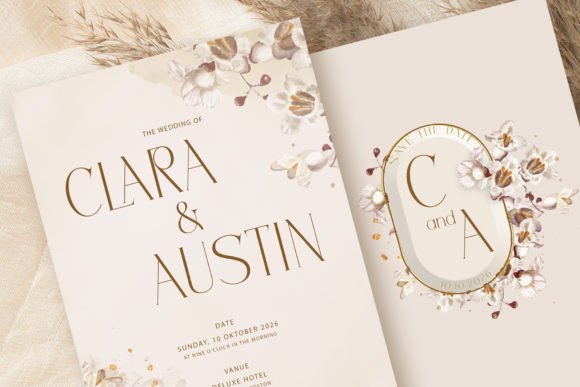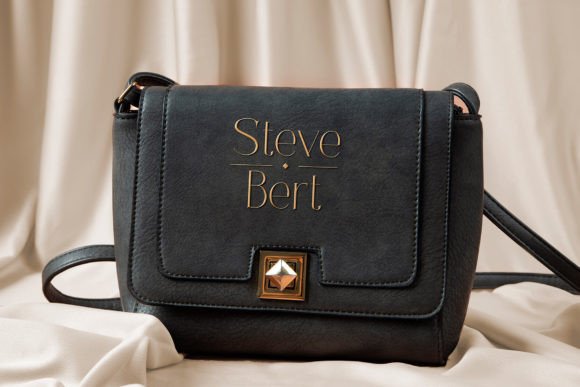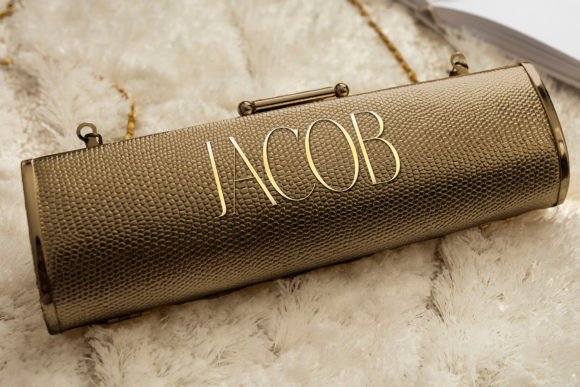
Introduction to Rolexa Font
Have you ever found yourself in the midst of a creative project, frantically searching for the perfect font to bring your vision to life? You know, that moment when everything else fades into the background, and all that matters is finding the right typography to make your design pop. For many designers, this is a familiar feeling, and it’s exactly what inspired us to dive into the world of fonts.
Among the countless options available, one font stands out for its elegance and versatility: the Rolexa Font. With its bold and sophisticated style, Rolexa Font is the perfect addition to any design project, from wedding invitations to social media posts. Its high-quality design makes it a valuable resource for designers, offering a transparent background that ensures seamless integration with any image or background.
Key Features of Rolexa Font
- High-quality design resource suitable for various creative projects, including logos, branding, and advertising materials.
- Features a unique, modern design aesthetic, making it perfect for contemporary creative projects.
- Supports a wide range of languages, including Latin, Cyrillic, and Greek alphabets, making it a versatile choice for designers working on international projects.
Honest Review: Rolexa Font
As a designer, I’m always on the lookout for high-quality design resources that can elevate my creative projects. In this review, I’ll share my honest thoughts on the Rolexa Font.
What works well: ✨ The Rolexa Font has a sleek and modern design that’s perfect for contemporary creative projects. It comes with a transparent background, making it easy to layer with other design elements. I also appreciate that it’s available for free download, which is a great bonus for designers on a budget.
- High-quality design with a modern aesthetic
Limitations: ⚠️ While the Rolexa Font is a great resource, I’ve noticed that it’s not as versatile as some other fonts. It’s best suited for digital design projects and may not be the best choice for print materials.
Overall, I’m impressed with the Rolexa Font and would recommend it to designers looking for a high-quality, free design resource. However, be aware of its limitations and consider your specific design needs before using it in your project.
Tips for Getting the Most Out of Rolexa Font
Use Rolexa Font on a transparent background to create a clean and modern design. Experiment with different font sizes and styles to add visual interest to your design. You can also combine Rolexa Font with other design resources, such as graphics and images, to create a high-quality design.
Rolexa Font is a versatile font that can be used in a variety of creative projects, including business cards, brochures, and social media graphics. It’s also a great option for designing logos and branding materials. With its transparent background and high-quality design, Rolexa Font is a valuable resource for designers and non-designers alike.